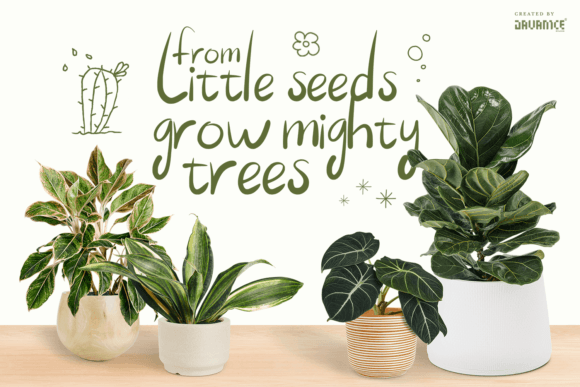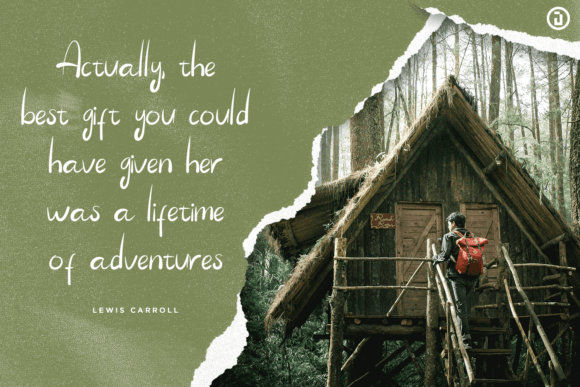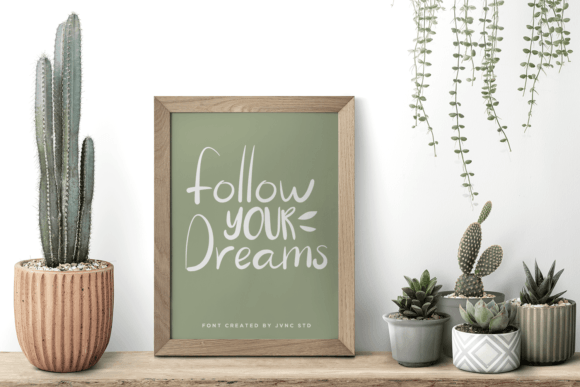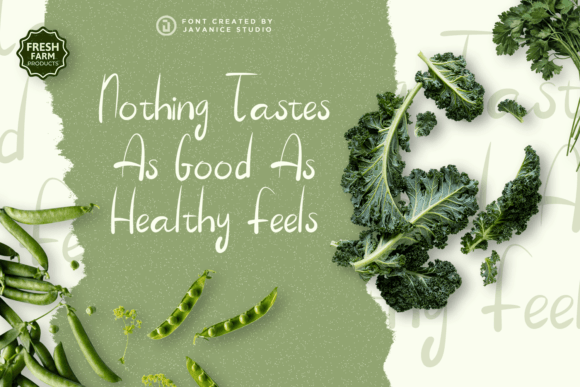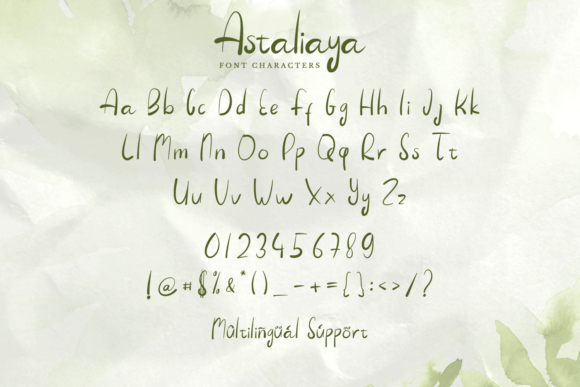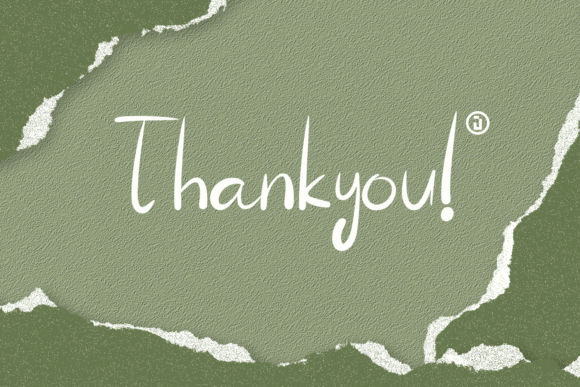
The Birth of a Creative Masterpiece: Introducing Astaliaya Font
Have you ever been brainstorming a new project and suddenly a spark of inspiration hits you? Maybe it’s a bold idea, a fresh color palette, or a perfectly imperfect handwritten font that sets your heart racing. For designers, those ‘aha’ moments are what drive creativity and make our work truly special. And that’s exactly what happened when the Astaliaya Font was born.
Astaliaya Font is a modern handwritten font designed to add a touch of elegance and sophistication to your branding projects. Whether you’re working on a fashion label, a makeup packaging design, or a wedding invitation, this font is sure to make your words stand out. Its versatility and unique style make it an invaluable tool for designers looking to elevate their work and leave a lasting impression.
Astaliaya Font Key Features
- Font Family: Astaliaya Font comes in a variety of styles, including Regular, Bold, Italic, and Bold Italic.
- Font Size: The font is designed to be highly legible at various sizes, ranging from 8pt to 24pt, making it suitable for body text, headings, and titles.
- Unique Characteristics: Astaliaya Font features a unique blend of modern and traditional design elements, including geometric shapes, organic curves, and subtle texture.
- Language Support: Supports a wide range of languages, including Latin, Cyrillic, Greek, and many others, making it a versatile choice for global design projects.
Astaliaya Font Review
Overall, I’m impressed with the Astaliaya font’s unique aesthetic and wide range of applications. ✨ It’s perfect for creating a modern and elegant look in digital and print projects. ✨ The font’s bold and playful style makes it suitable for headings, titles, and even logos.
- Unique and modern design
- Wide range of applications, from digital to print
- Perfect for headings, titles, and logos
- Supports multiple languages
However, I do have a few concerns about the font’s limitations. ⚠️ While it’s a great choice for headings and titles, it may not be the best option for large blocks of text due to its bold and playful style. ⚠️ Additionally, the font’s uniqueness can make it difficult to read for those who are not familiar with it.
- Not ideal for large blocks of text
- May be difficult to read for those unfamiliar with the font
- Lack of subtlety and nuance in its design
I would recommend the Astaliaya font for designers who want to add a touch of modernity and elegance to their projects. While it has its limitations, it’s a great choice for headings, titles, and logos. With some careful consideration of its use, I think the Astaliaya font has the potential to become a valuable addition to any designer’s toolkit.
Tip: Use Astaliaya font for headings and titles to add a touch of elegance to your design.
Tip: Use Astaliaya font for titles and headings to create a consistent design theme.
Tip: Use Astaliaya font for headings and titles to add a touch of sophistication to your presentation or document.
Astaliaya font is perfect for:
- Magazine and newspaper headlines.
- Business cards and letterheads.
Remember to use Astaliaya font in moderation to avoid overwhelming your design.
Compared to Astaliaya Font, Montserrat has a more geometric and clean appearance, while Astaliaya Font has a more elegant and refined look. Montserrat is also more suitable for digital use due to its optimized design for small screen sizes.
Lato is a modern sans-serif font designed to be highly legible and versatile. It is suitable for both body text and headings and has a clean and elegant appearance.
Compared to Astaliaya Font, Lato has a more geometric and minimalist design, while Astaliaya Font has a more refined and luxurious look. Lato is also more suitable for digital use due to its optimized design for small screen sizes.
Q: Does the Astaliaya Font support languages other than English?
Yes, the Astaliaya Font supports a wide range of languages, including Latin, Cyrillic, Greek, and many languages using the Latin alphabet. The font also includes support for Unicode characters, ensuring that it can display text in various languages with accurate rendering and layout.